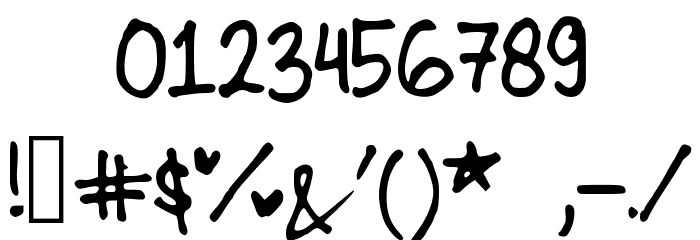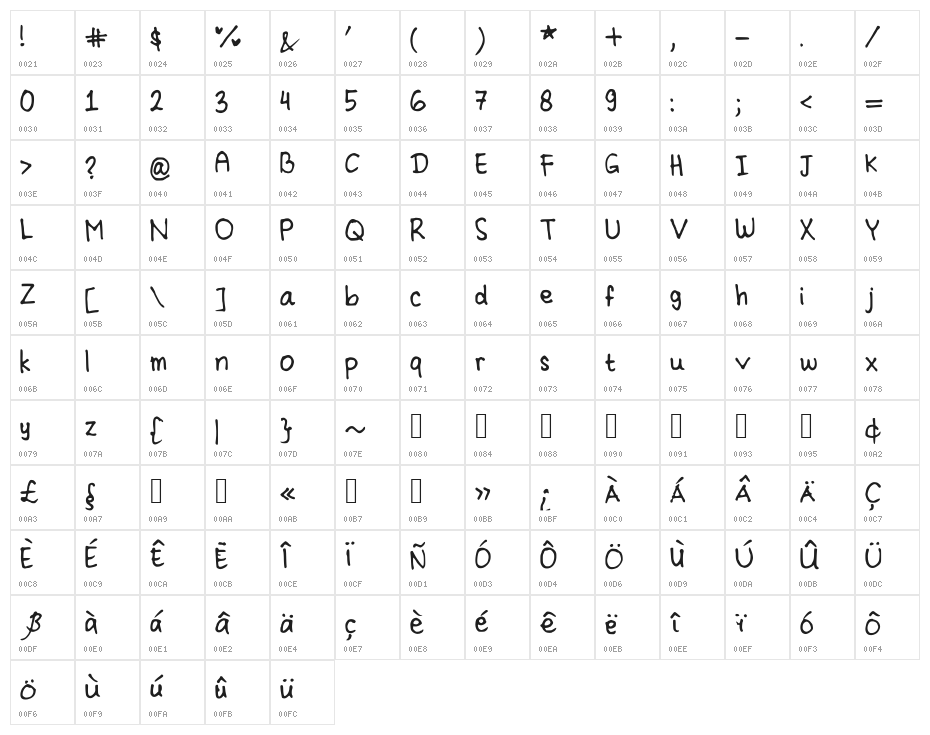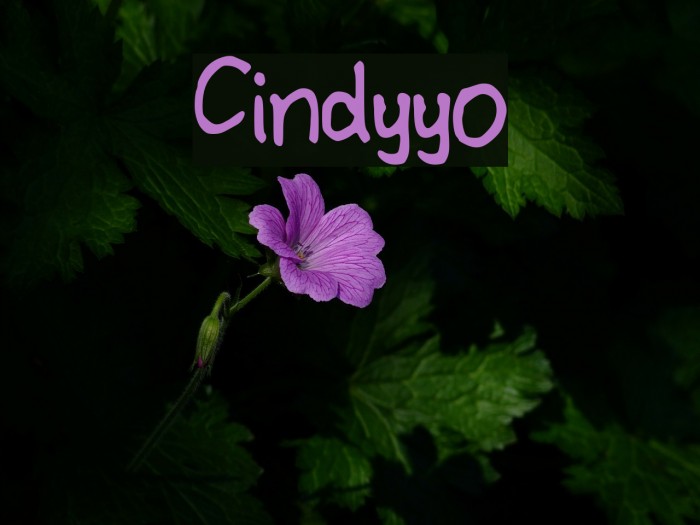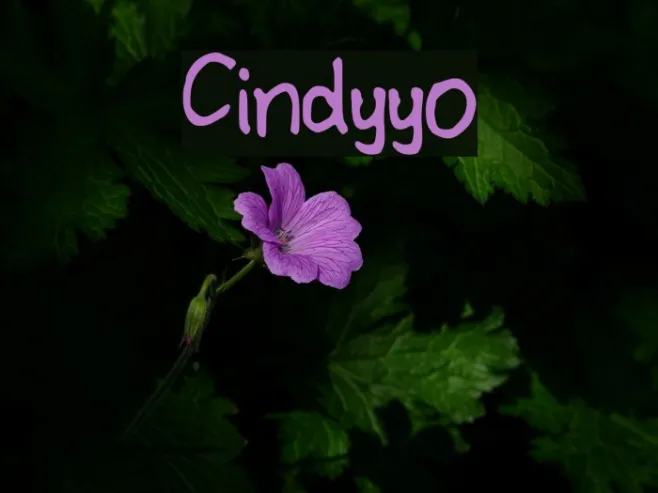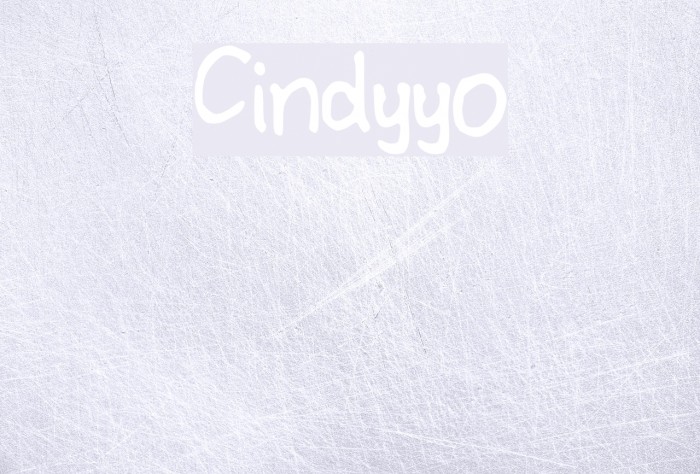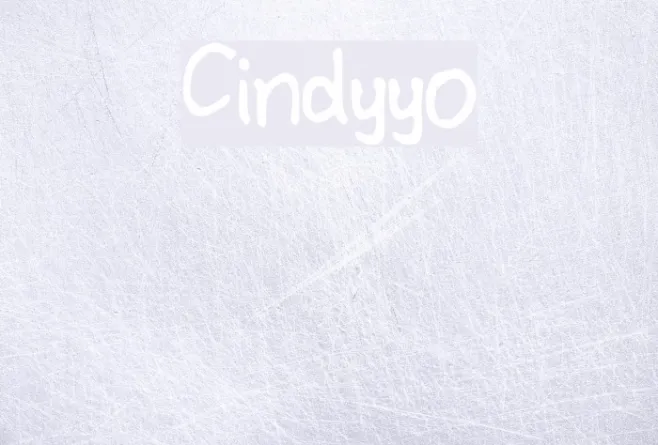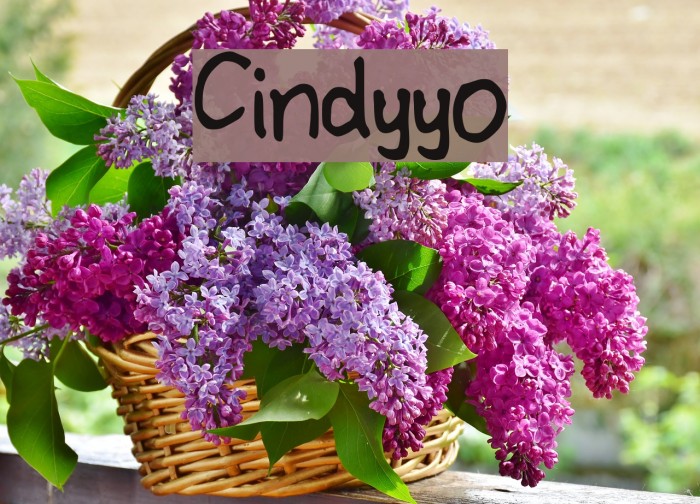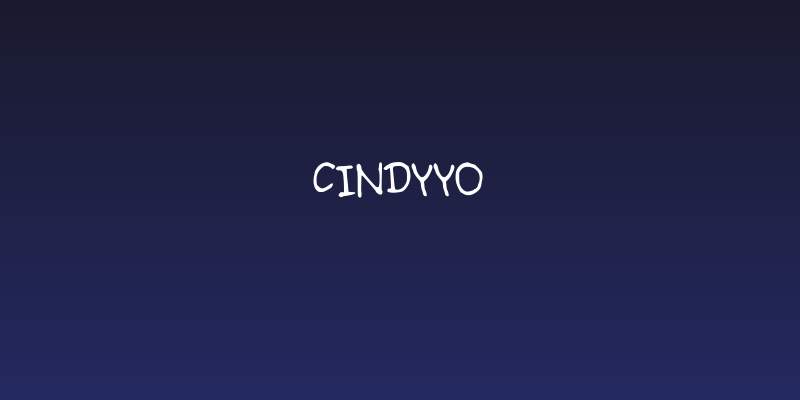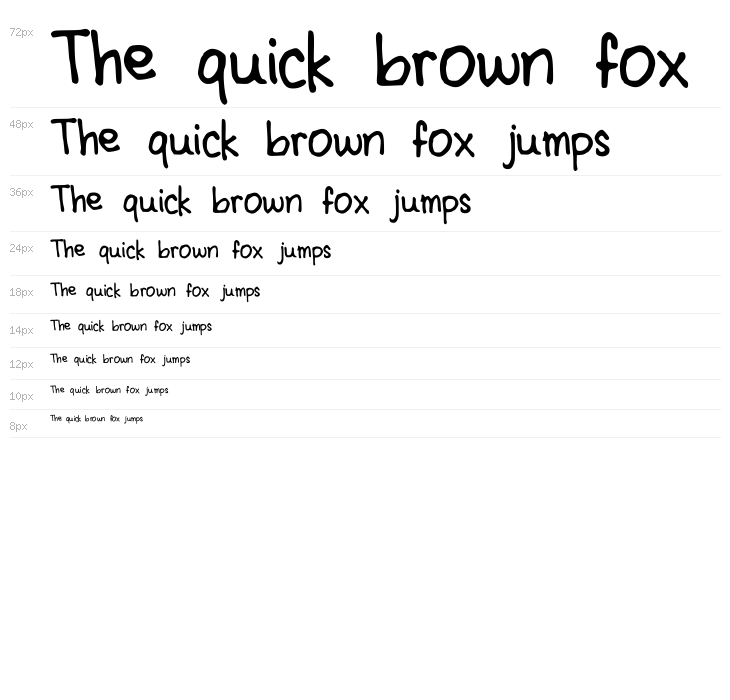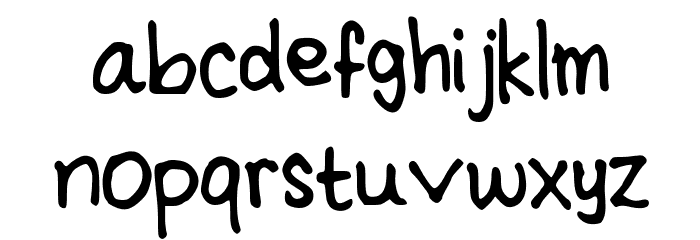
Cindyyo Font
Cindyyo Description
This playful and whimsical font features a handwritten style with a casual, friendly appearance. The characters are slightly irregular, adding a personal touch that mimics natural handwriting. The strokes are consistent in weight, providing a uniform look across all letters and numbers. The font includes both uppercase and lowercase letters, numerals, and a variety of special characters, making it versatile for different uses. Its informal style is perfect for projects that require a personal or creative touch, such as greeting cards, children's books, or playful branding materials.
| Proposed Projects | Ideal for greeting cards, children's books, playful branding, and creative projects. |